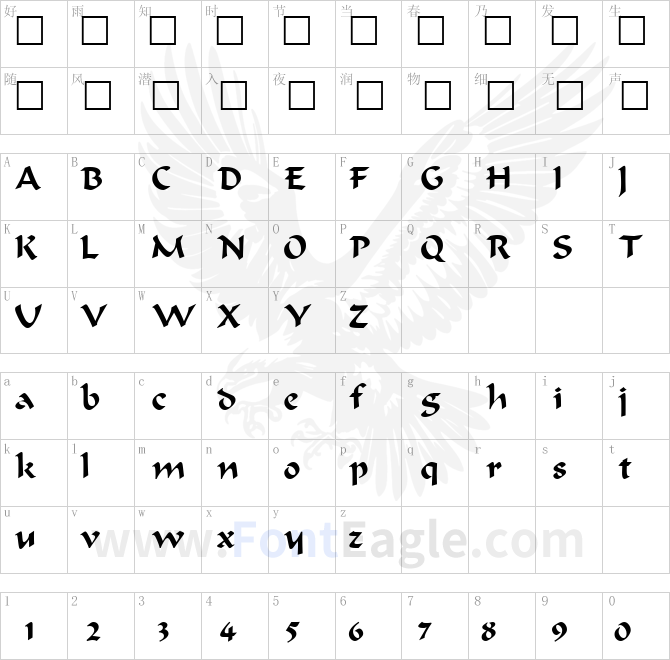
- Font name:Boldmarks
- Font Subfamily ID:Altsys Fontographer 3.5 Boldmarks Regular
- Font Full Name:Boldmarks Regular
- Font Version:Altsys Fontographer 3.5 3/13/92
- Postscript:Bodacious Regular